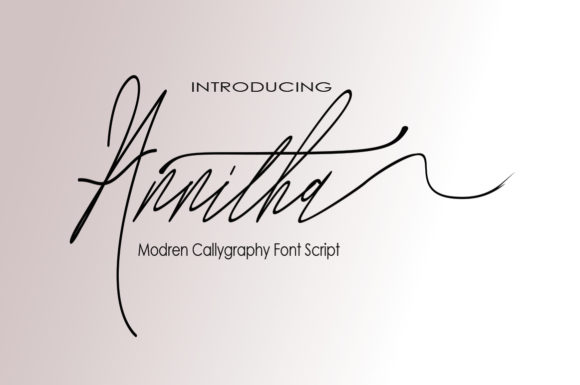
Annitha Font
Step into the realm of elegance and sophistication with Annitha Font, the epitome of modern calligraphy script. AsaharStudio, the creative force behind this masterpiece, has meticulously crafted each letterform to exude a grace that will elevate your designs to new heights.
Annitha Font is not just a collection of characters; it's an artistic expression that breathes life into your words. It's a font that speaks of timeless beauty and sophistication, capturing the essence of classic calligraphy with a contemporary twist.
With its delicate strokes and flowing curves, Annitha Font adds an upscale and chic touch to any project. Whether you're designing headings, logos, wedding invitations, t-shirts, letterheads, signage, labels, news, posters, badges, or anything else, Annitha Font will transform your designs into captivating works of art.
Imagine the impact of your wedding invitations adorned with the graceful lines of Annitha Font, conveying the elegance and romance of your special day. Picture your brand's logo emblazoned with the unique charm of Annitha Font, leaving a lasting impression on your customers.
Unlock the endless possibilities with Annitha Font. Its versatility knows no bounds, allowing you to create designs that reflect your unique style and vision. From classic and timeless to modern and edgy, Annitha Font adapts effortlessly to suit any project, any occasion.
Don't settle for ordinary fonts that blend into the background. Dare to be different, to make a statement, to captivate and inspire with Annitha Font. Let your creativity soar as you explore the limitless potential of this extraordinary font.
Annitha Font is more than just a font; it's an investment in your creative pursuits. It's a tool that will empower you to create stunning designs that leave a lasting impression. Experience the magic of Annitha Font today and embark on a journey of artistic brilliance.